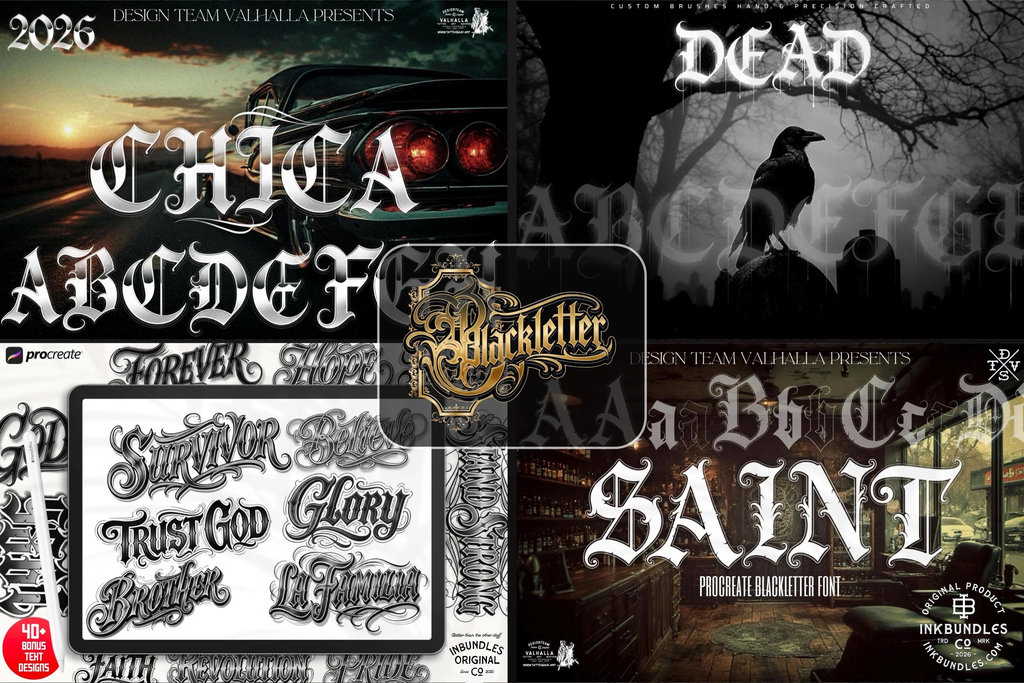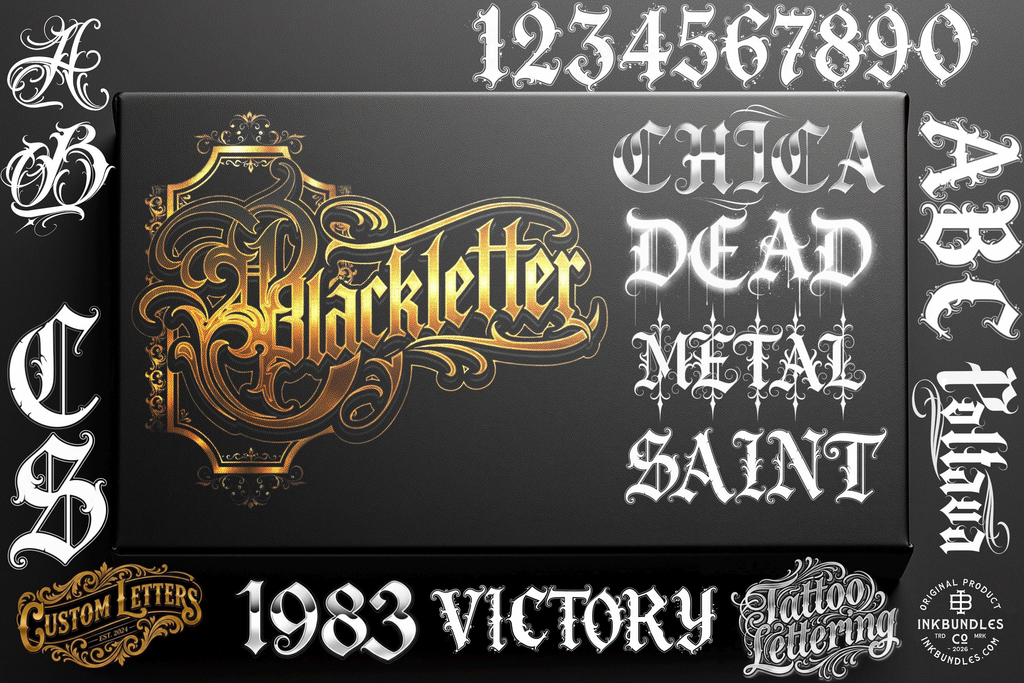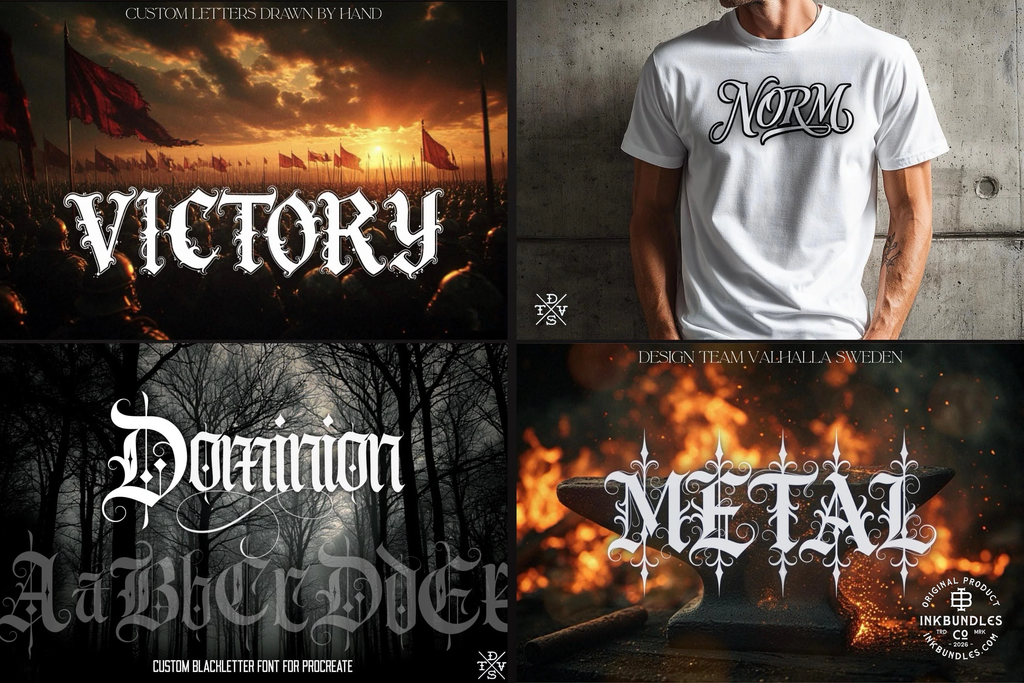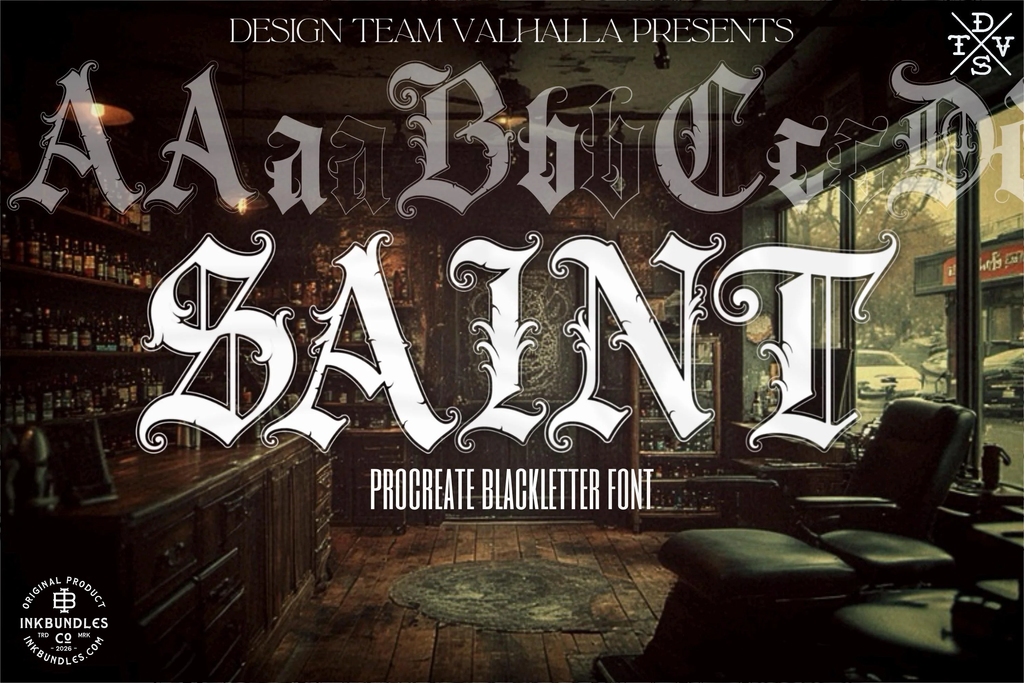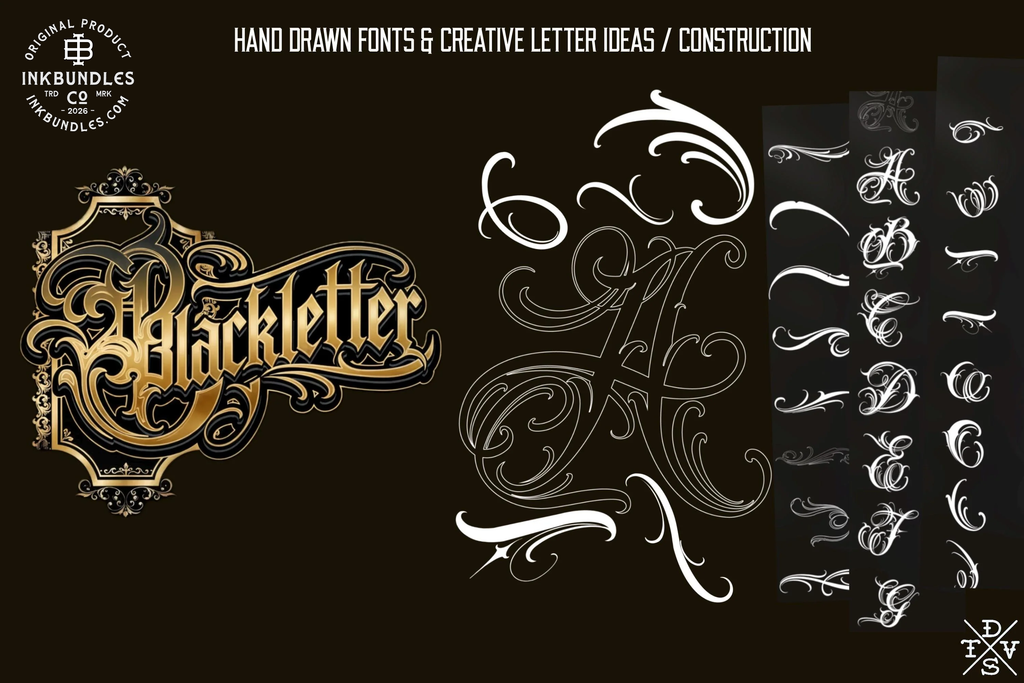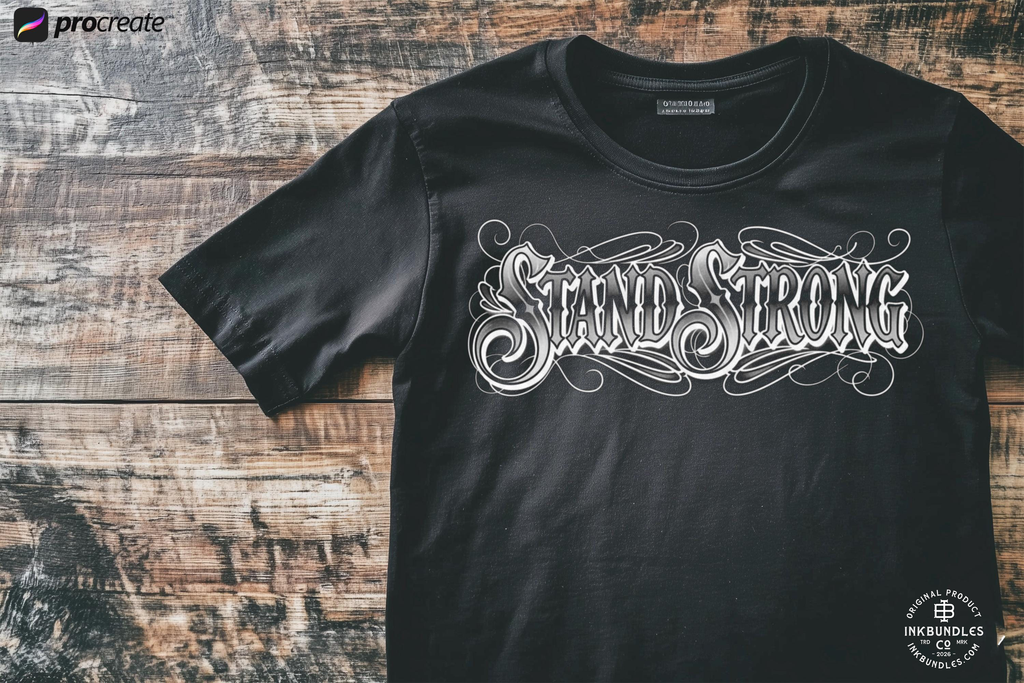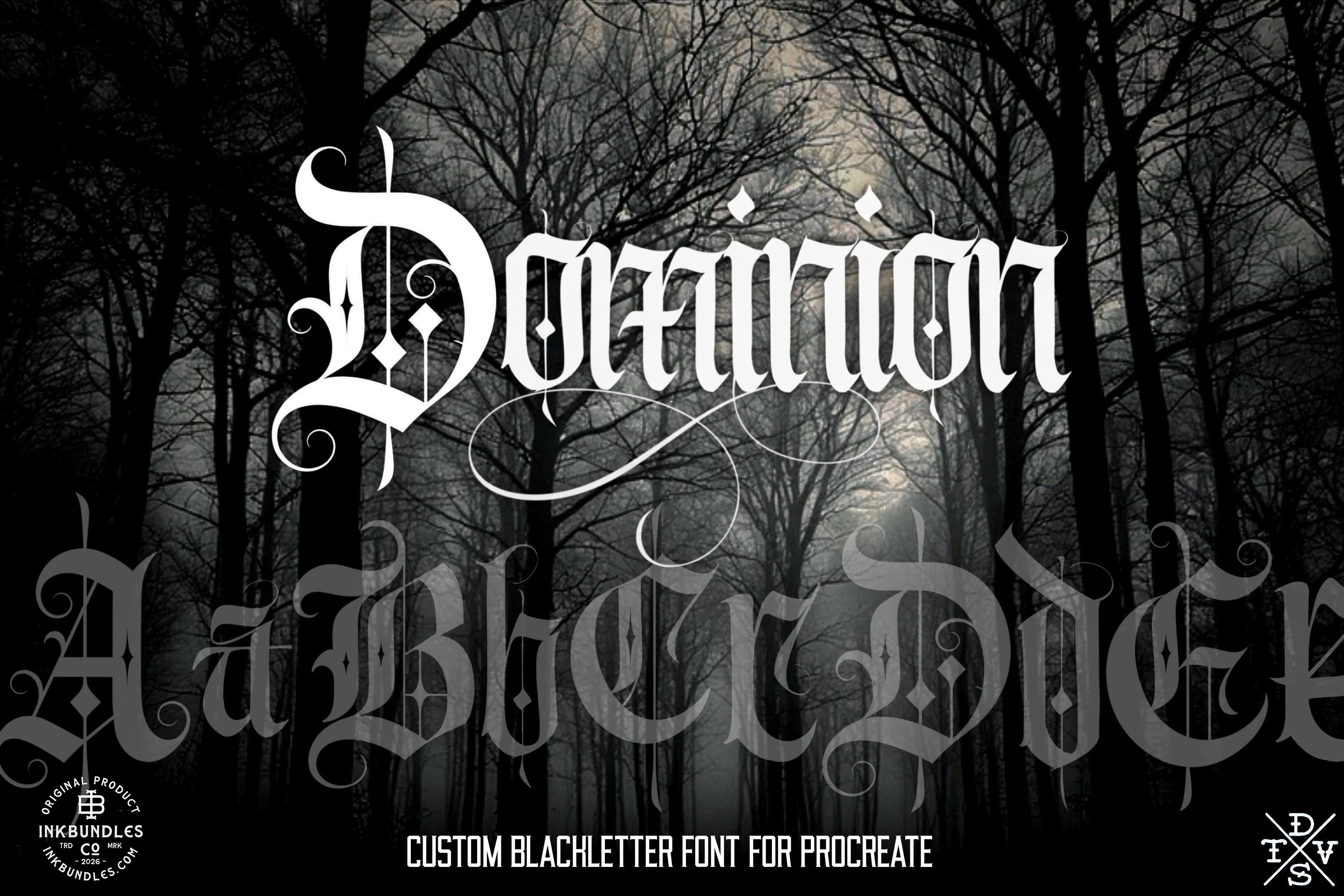
Blacklettering for Procreate Vol.1
• 46 blackletter / chicano inspired text designs ( 46 stamps )
• Saint ( 86 stamps )
• Victory (39 stamps )
• Chica ( 44 stamps )
• Dead ( 28 stamps )
• Dominion ( 58 stamps )
• Metal ( 28 stamps ) + png,svg & .otf font
• Poltava ( 55 stamps )
• Cathedral ( 65 stamps )
+ Capital letter ideas Chicano / Blackletter +Brushes & creative kit ( 75 stamps & brushes )
Carefully crafted Blackletters made for Procreate to ensure the highest attention to detail. The complete alphabet—both uppercase and lowercase—is designed for effortless combination, making it easy for you to fuse letters seamlessly into your own unique pieces. We simplify your creative process by eliminating the hassle of traditional stencil-making. Browse our extensive gallery of ultra-high-resolution designs and save hours of drawing and stenciling. It doesn’t get any easier than this!